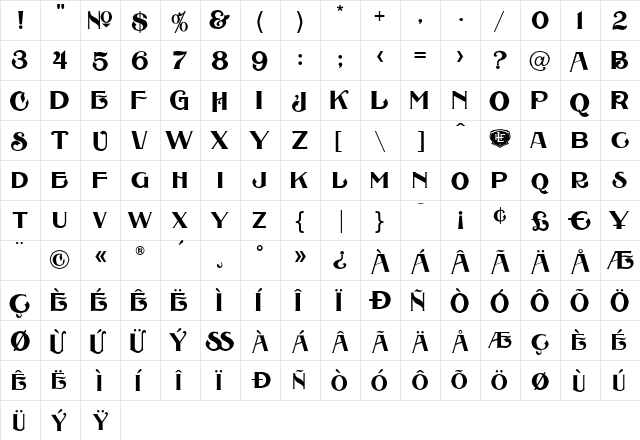
LHF Cigar Shop Maduro Regular
Design Context for LHF Cigar Shop Maduro Typeface
LHF Cigar Shop Maduro is a composed and adaptable typeface that performs quietly and consistently across a wide range of design contexts.